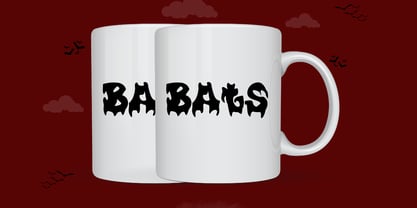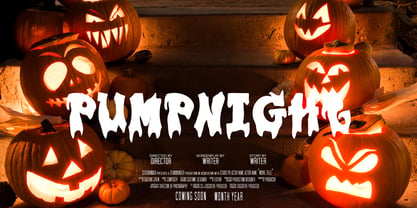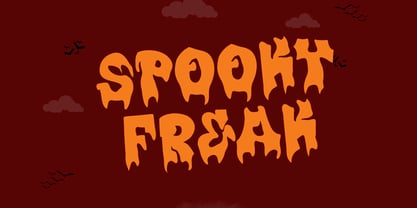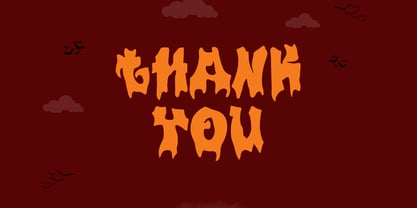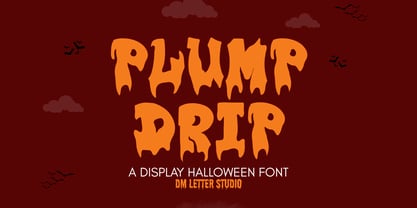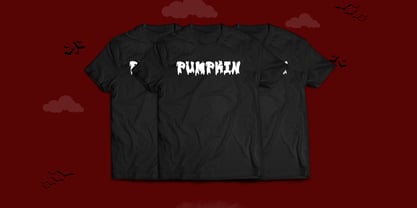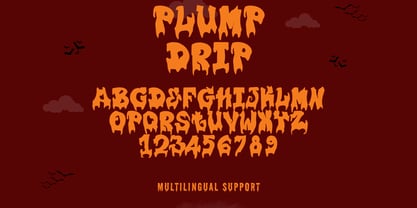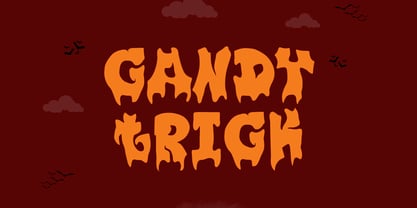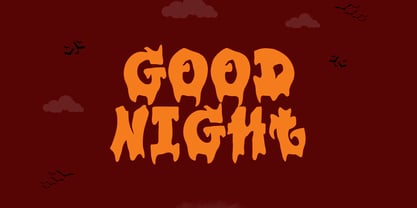
Plump Drip
Die Schriftfamilie Plump Drip wurde von Dimas Prasetyo entworfen und von DM Studio veröffentlicht. Plump Drip enthält 1 Stile. Mehr über diese Familie
Meet Plump Drip, the Display Font Plump Drip is a chunky display font with a fun dripping style that feels bold, juicy, and impossible to ignore. It turns simple words into high-impact headlines that look like melting paint or sweet icing. The shapes stay thick and balanced, so your text stays readable even with the drip details. Because counters stay open, small stickers and labels remain clear while big titles look extra playful. Use it for streetwear drops, Halloween promos, snack branding, posters, stickers, packaging, YouTube thumbnails, and bold quote graphics. As a result, your designs instantly feel louder and more sellable. Why Plump Drip sells First, it installs fast and works smoothly in Canva, Photoshop, and Illustrator. Next, the bold letterforms print cleanly for stickers, labels, packaging, and merch. Then layouts come together quickly because the drip effect is built in, so you don’t need extra textures. Moreover, Plump Drip pairs perfectly with a clean sans or a condensed font, which keeps supporting text readable. Therefore, you can build cohesive collections and seasonal promos faster. Fast layouts with the Plump Drip font Start with a short headline in Plump Drip and keep it punchy. After that, add details in a clean supporting font for dates, prices, or product names. Because the drips add character, give the headline extra breathing room and avoid tight line spacing. In addition, try placing it inside a badge, sticker shape, or rounded rectangle to make it feel like a label. Finally, save palette pairs like black & slime green, cherry & cream, purple & neon, or chocolate & vanilla to repeat across your product line. Creative uses and quick wins Streetwear logos, merch slogans, and hoodie prints Halloween titles, spooky stickers, and party invites Candy, dessert, and drink packaging headlines Posters, thumbnails, reels covers, and bold quote posts What you get Uppercase, lowercase, numbers, punctuation Drip-style display letterforms for bold headlines Multilingual Latin support (where included in your build) Curves tuned for clean print and high-res exports Design tips for Plump Drip Keep phrases short so the drip style stays strong. Also, add a thin outline or soft shadow when the background is busy. For cutting jobs like vinyl, go larger so drip details stay clean. Finally, export at 300 DPI for print and at 2× size for web so edges stay smooth everywhere.
Designer: Dimas Prasetyo